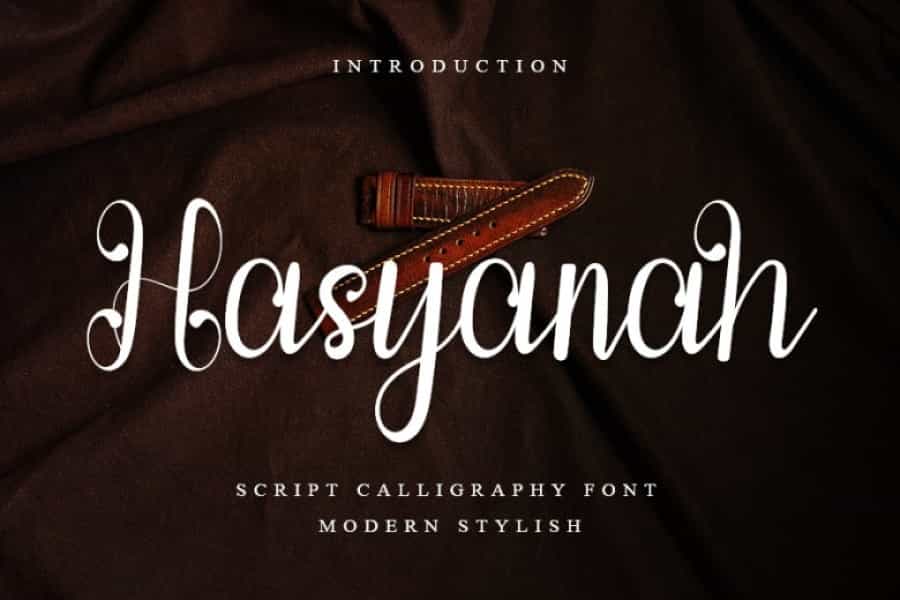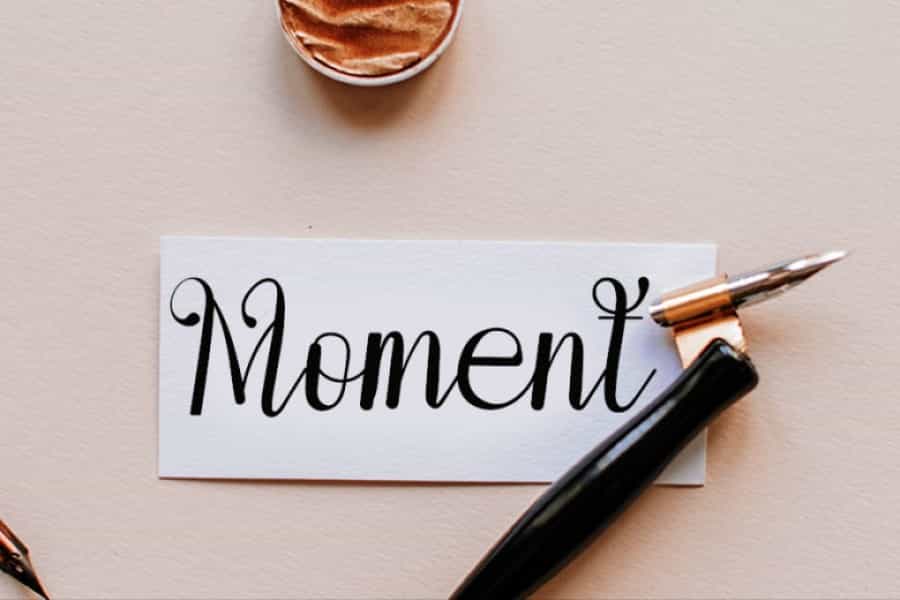
Hasyanah can be described as an elegant and fluid script typeface. With well-balanced characters and multiple applications across styles, Hasyanah makes your creative ideas come to life! Use Hasyanah in all your most innovative projects and watch as it brings them alive!